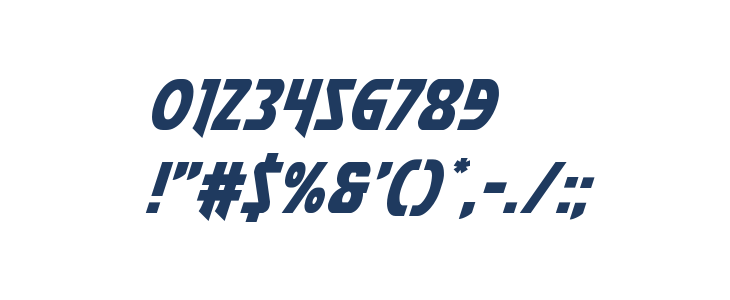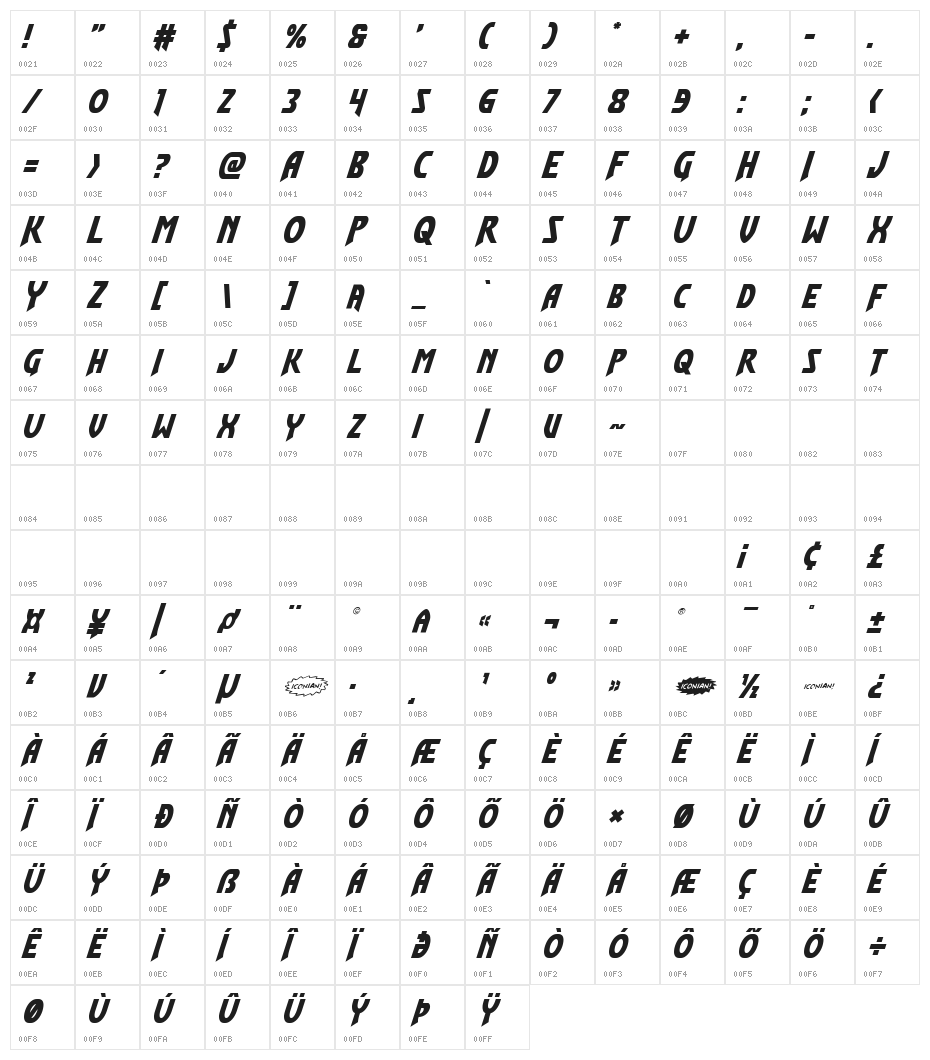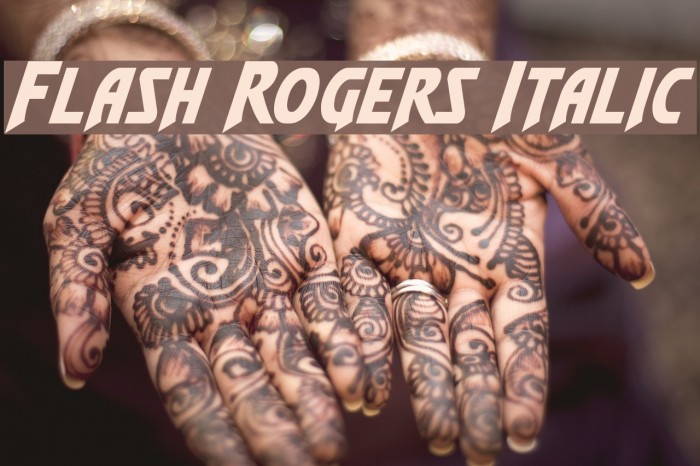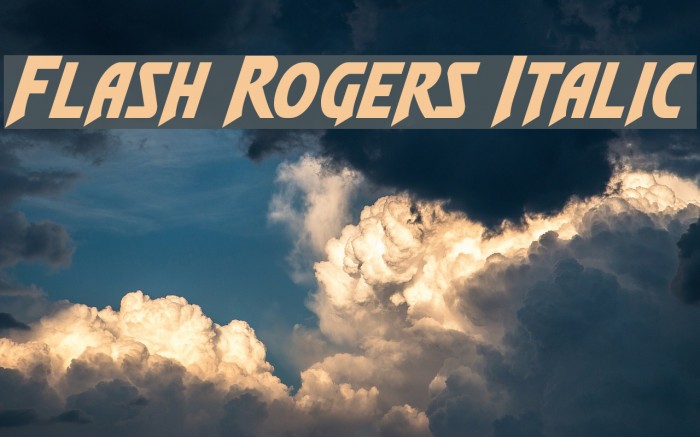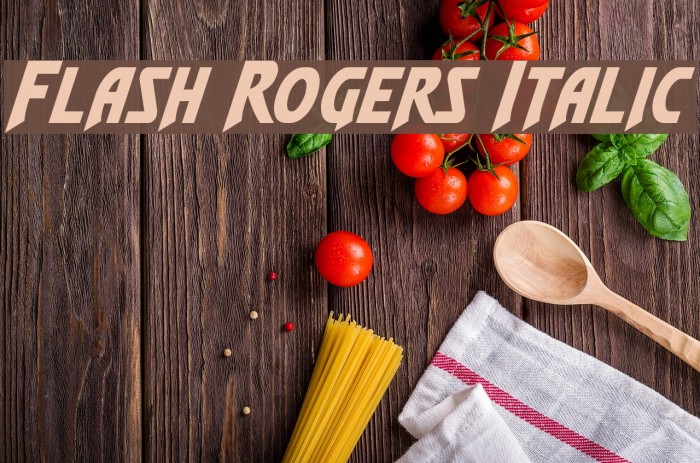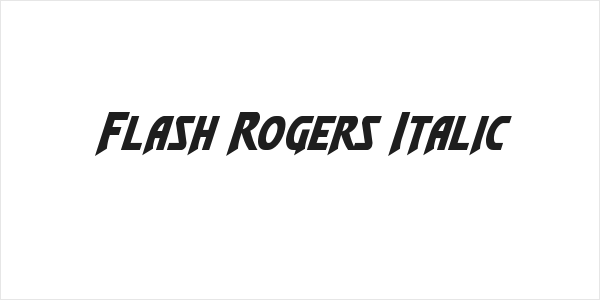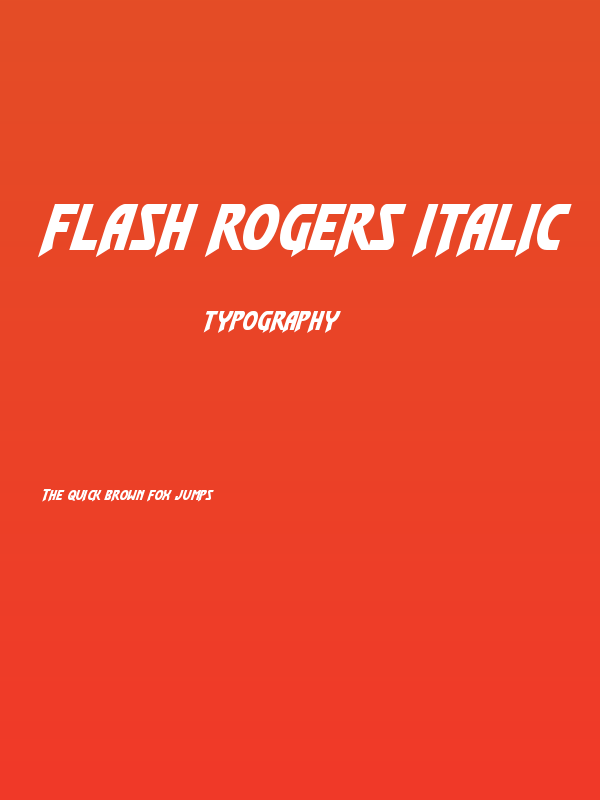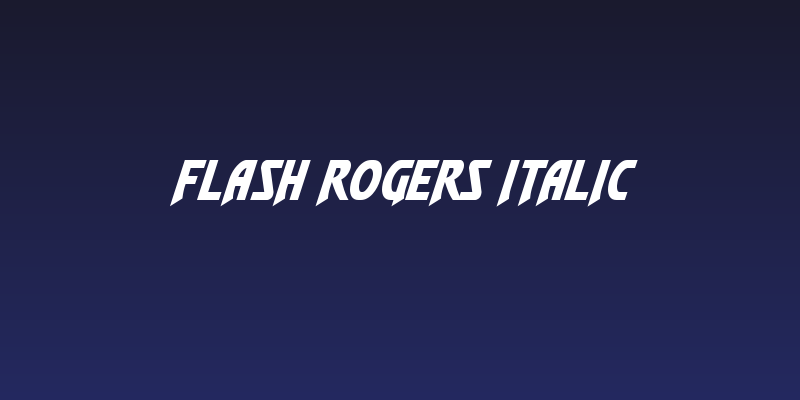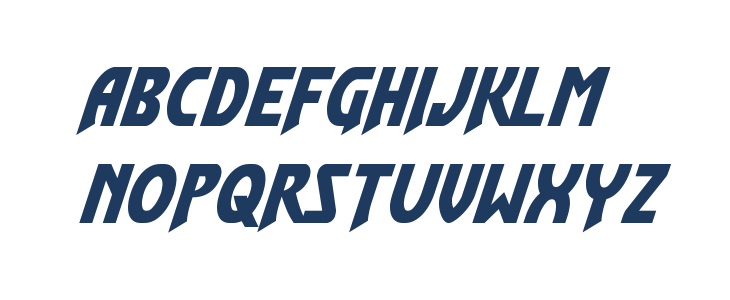
Flash Rogers Italic Font
Flash Rogers Italic Description
This font features a bold and dynamic style with a strong italic slant, creating a sense of motion and energy. The characters are sharply angled, with distinct edges and a futuristic appearance. The uppercase and lowercase letters maintain a consistent style, emphasizing a sleek and modern aesthetic. The numerals and special characters are designed to match the overall theme, providing a cohesive look across all glyphs. This font is ideal for projects that require a bold statement and a sense of speed or action.